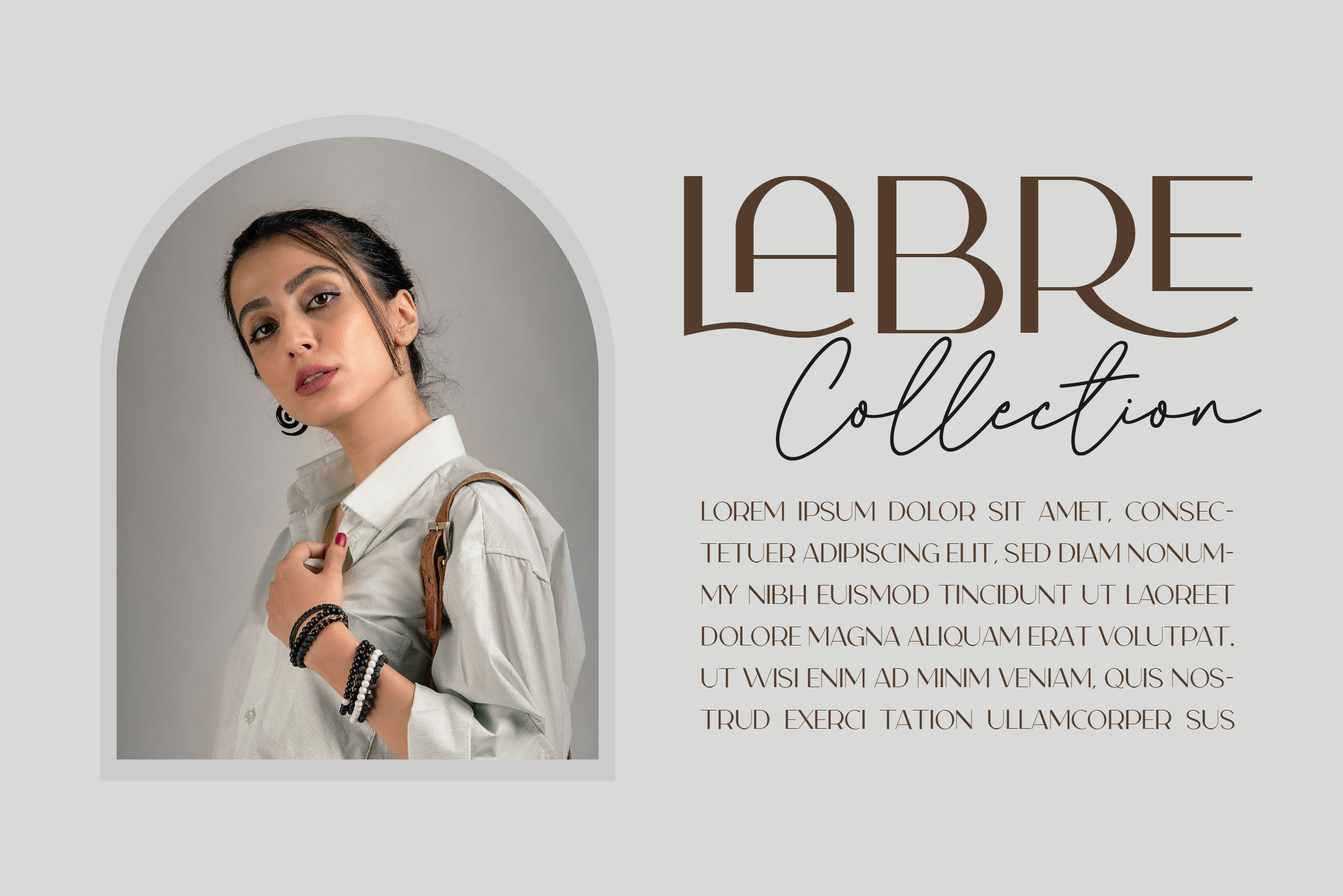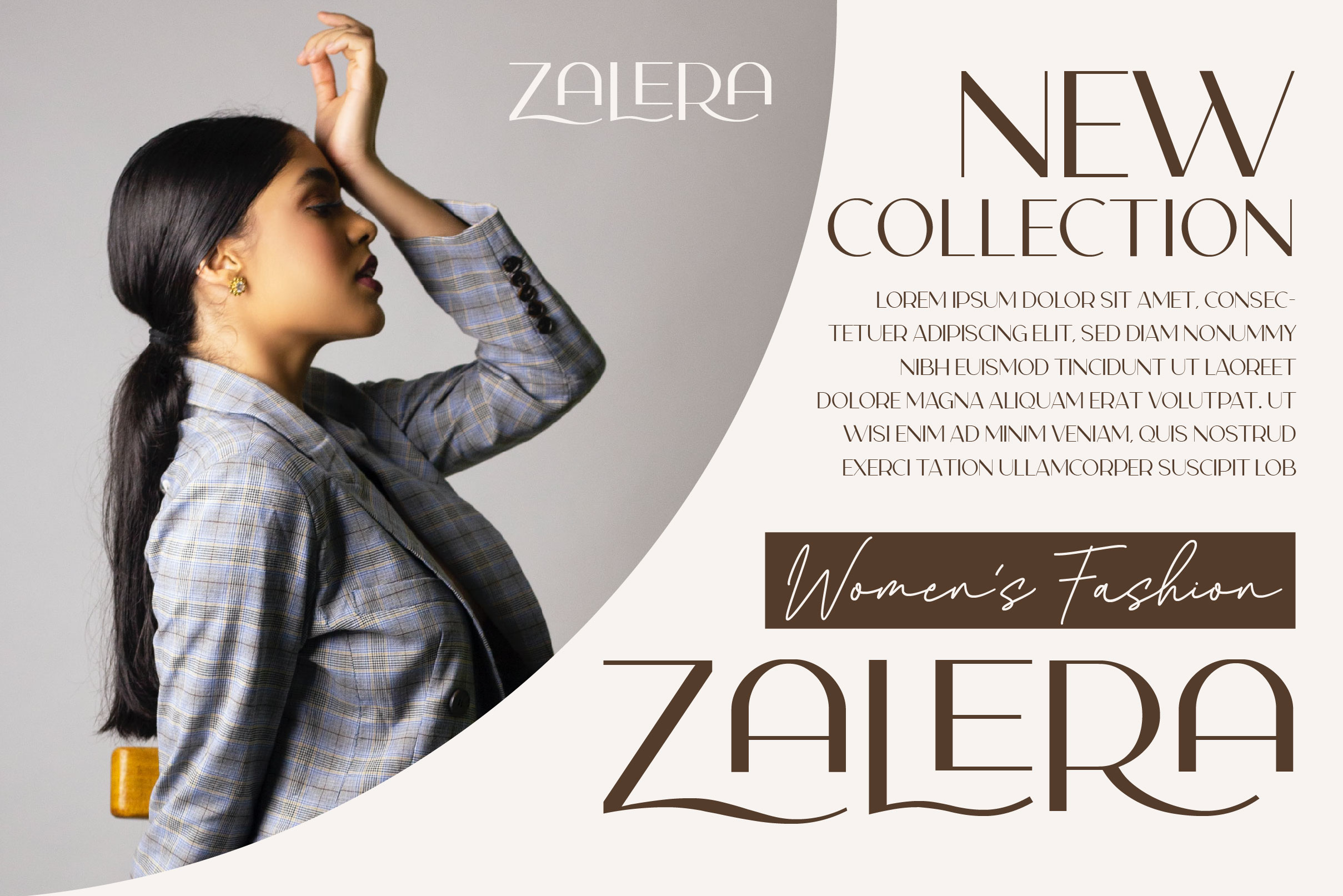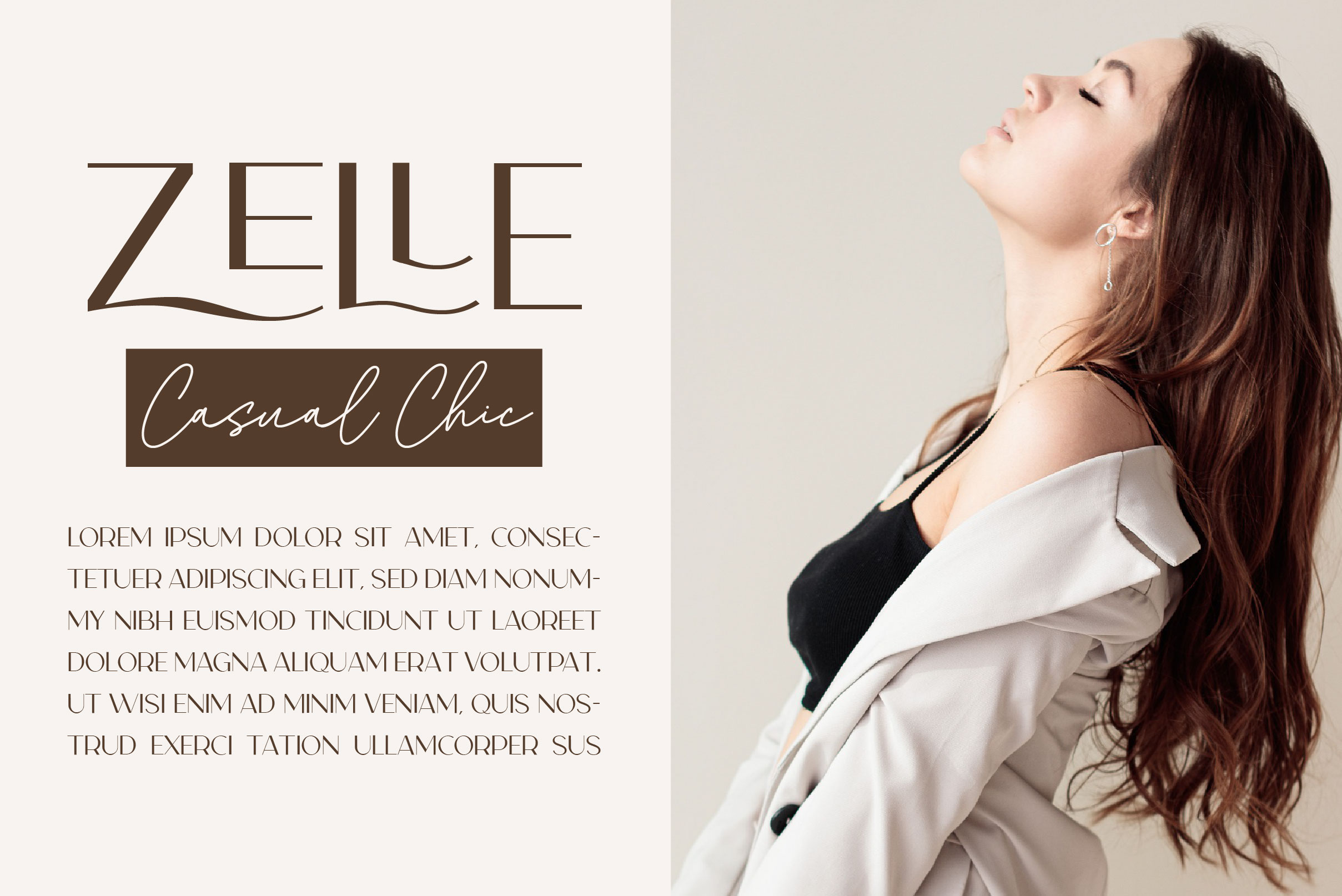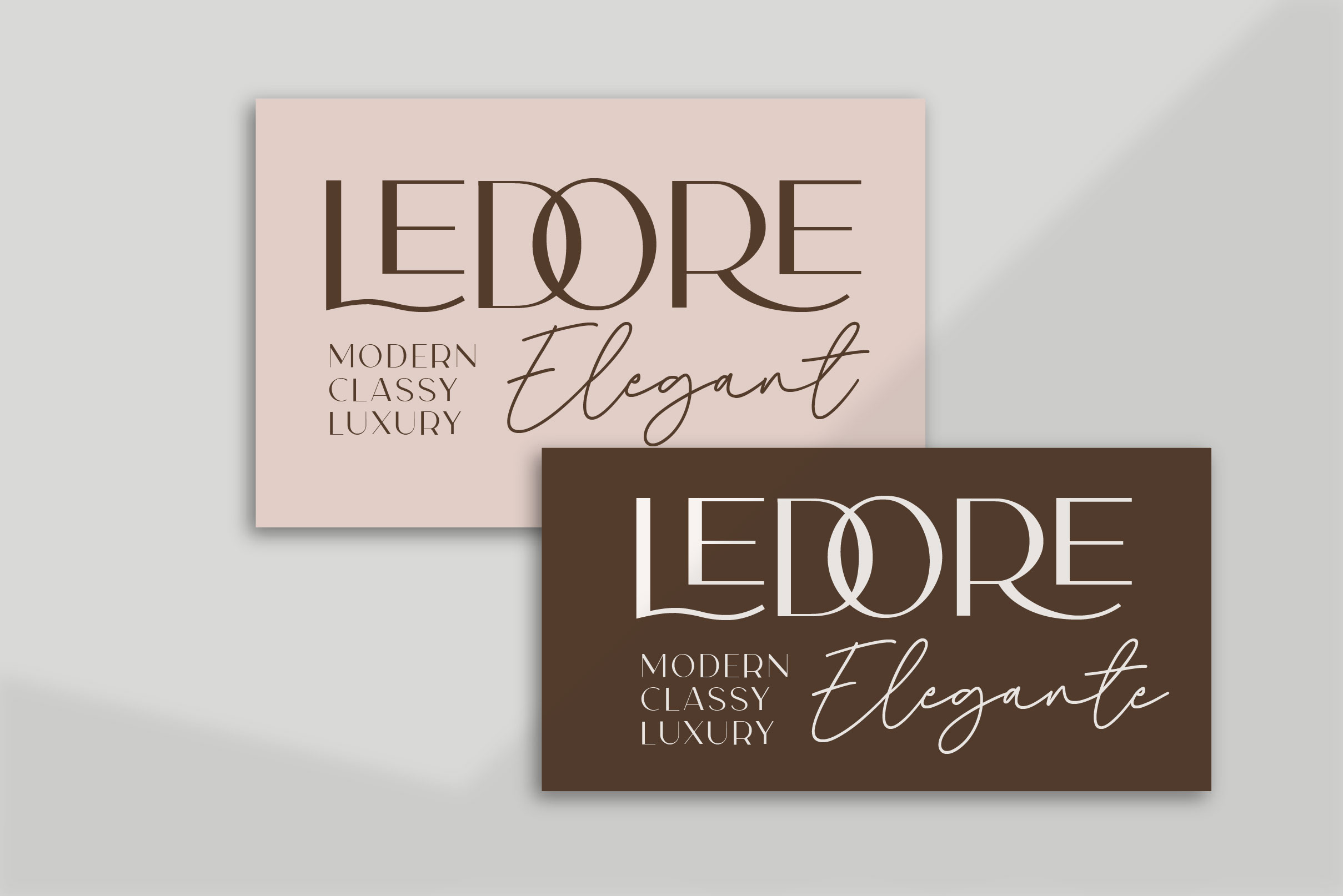
Kane Font
Kane Sans Serif Font is a classic and assertive sans serif typeface. No matter the topic, this font will be an incredible asset to your fonts’ library, as it has the potential to elevate any creation.
– Uppercase, Lowercase, Numeral & Punctuation
– Alternate Letters, Ligature & Swash/Tail
– Multilingual & PUA Encoded